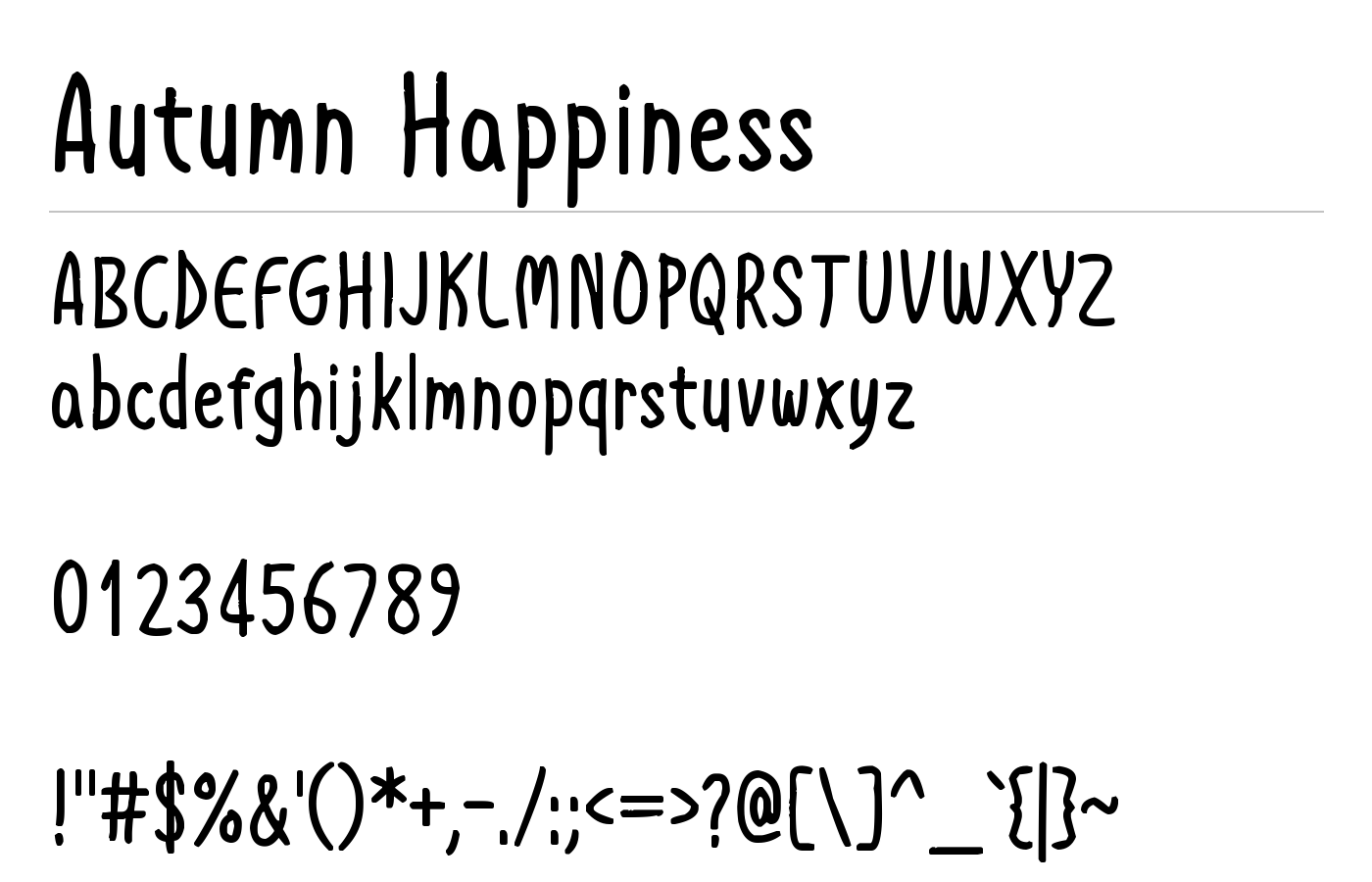
Autumn Happiness is a playful and casual sans serif font with a hand-drawn feel, featuring tall, narrow letterforms and consistent stroke weight. Its friendly appearance and slightly irregular shapes make it perfect for projects seeking a warm, approachable vibe, such as children's books, informal branding, or creative invitations. This font works well in both headlines and short text where a personal, cheerful touch is desired.
Autumn Happiness Font
About Autumn Happiness Font